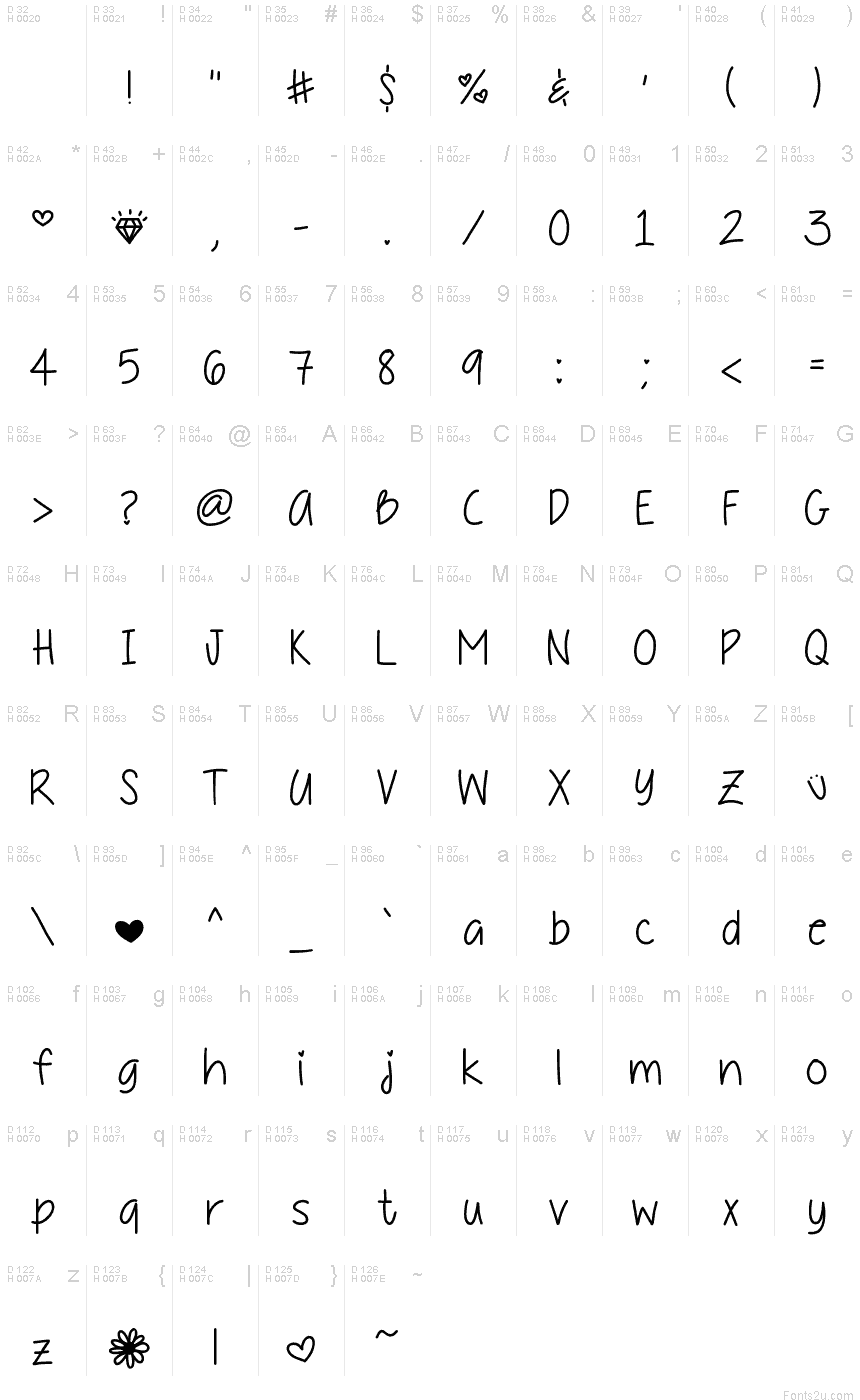
Daddys Girl by Bythebutterfly.com is a free handwritten font with tall, loose lettering and a quick pen-drawn line. Its narrow shapes, uneven stroke widths, and occasional playful details give the writing the candid look of a personal note.
Greeting cards are its strongest fit, especially for affectionate messages, with invitations and children's merchandise offering equally natural settings. In editorial design, its informal voice could lend diary pages or personal essays the intimacy of writing taken straight from a notebook.